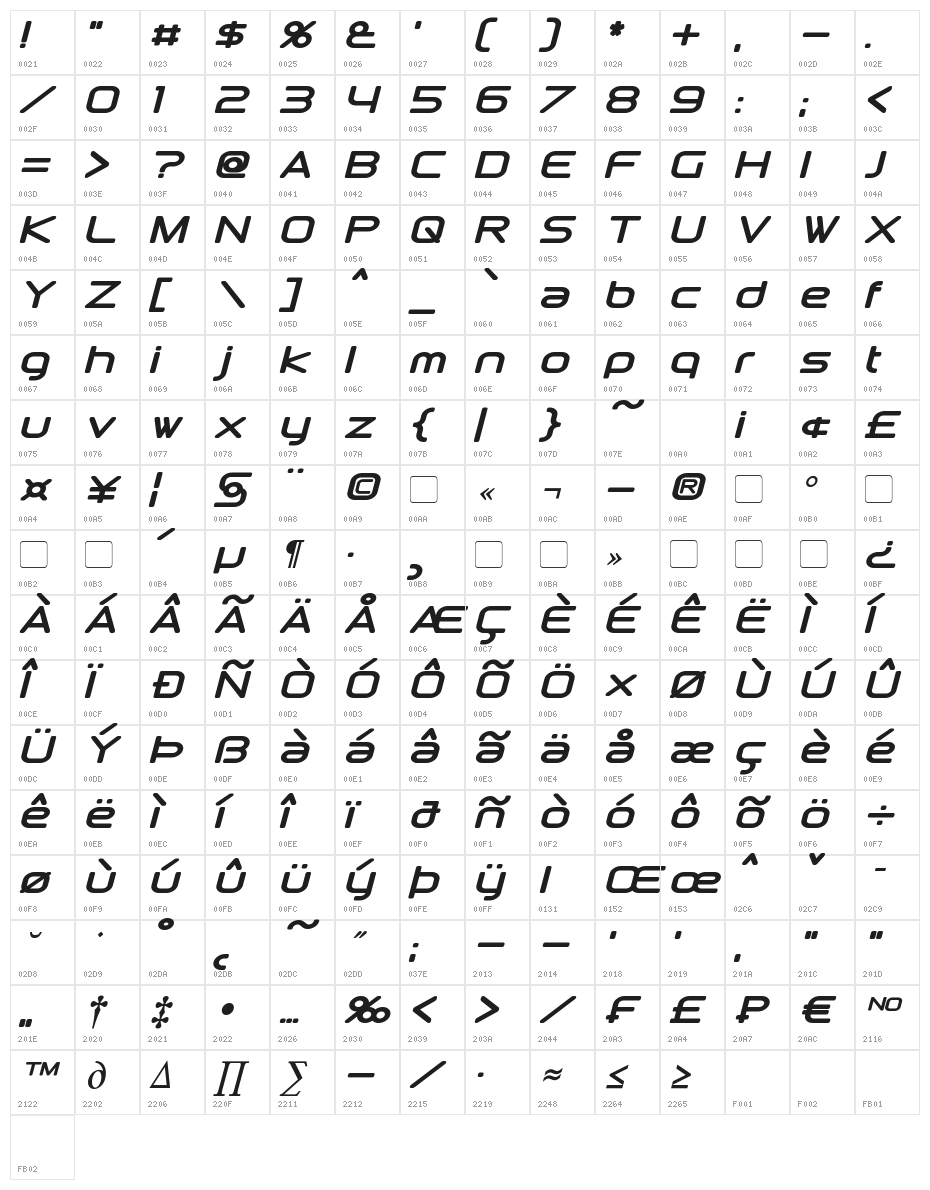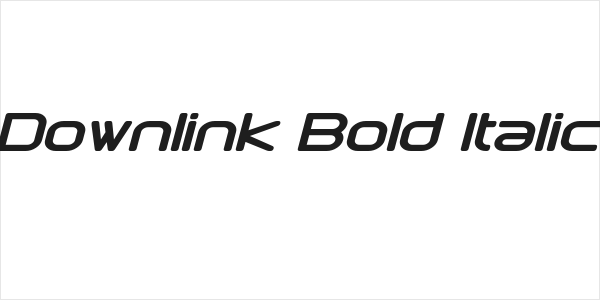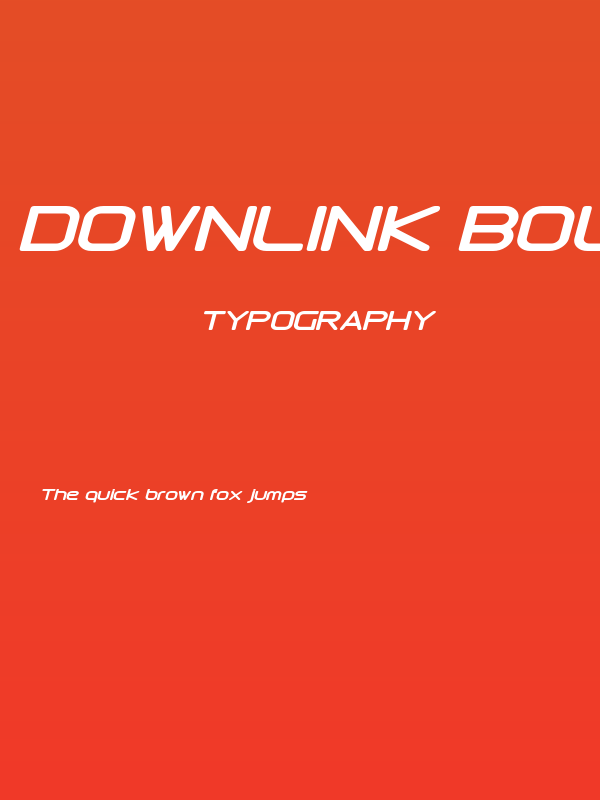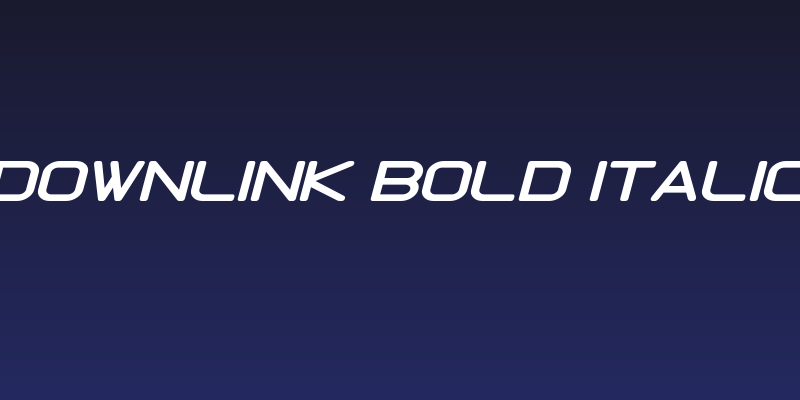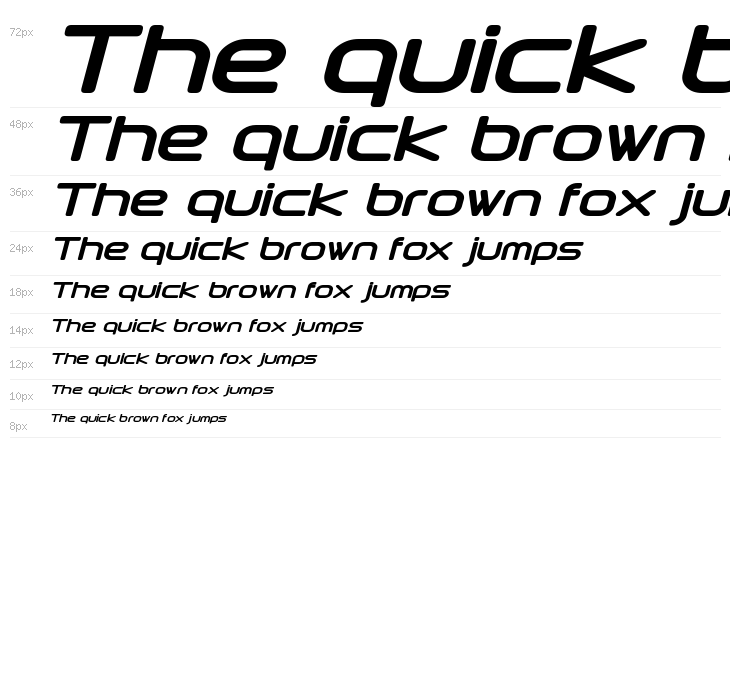
Downlink Bold Italic Font
Downlink Bold Italic Description
This font features a sleek, modern design with a distinct italic slant, giving it a dynamic and forward-moving appearance. The characters are bold, with a uniform stroke width that maintains consistency across all letters and numbers. The rounded edges and smooth curves lend a futuristic and tech-inspired feel, making it suitable for contemporary design projects. The spacing between characters is tight, enhancing its compact and cohesive look. Special characters are included, maintaining the same stylistic elements as the alphanumeric characters, ensuring a seamless integration in various design contexts.
| Use Case | Logos, Headlines, Digital Interfaces |
| Proposed Projects | Ideal for technology branding, sports team logos, futuristic posters, and digital interfaces. |